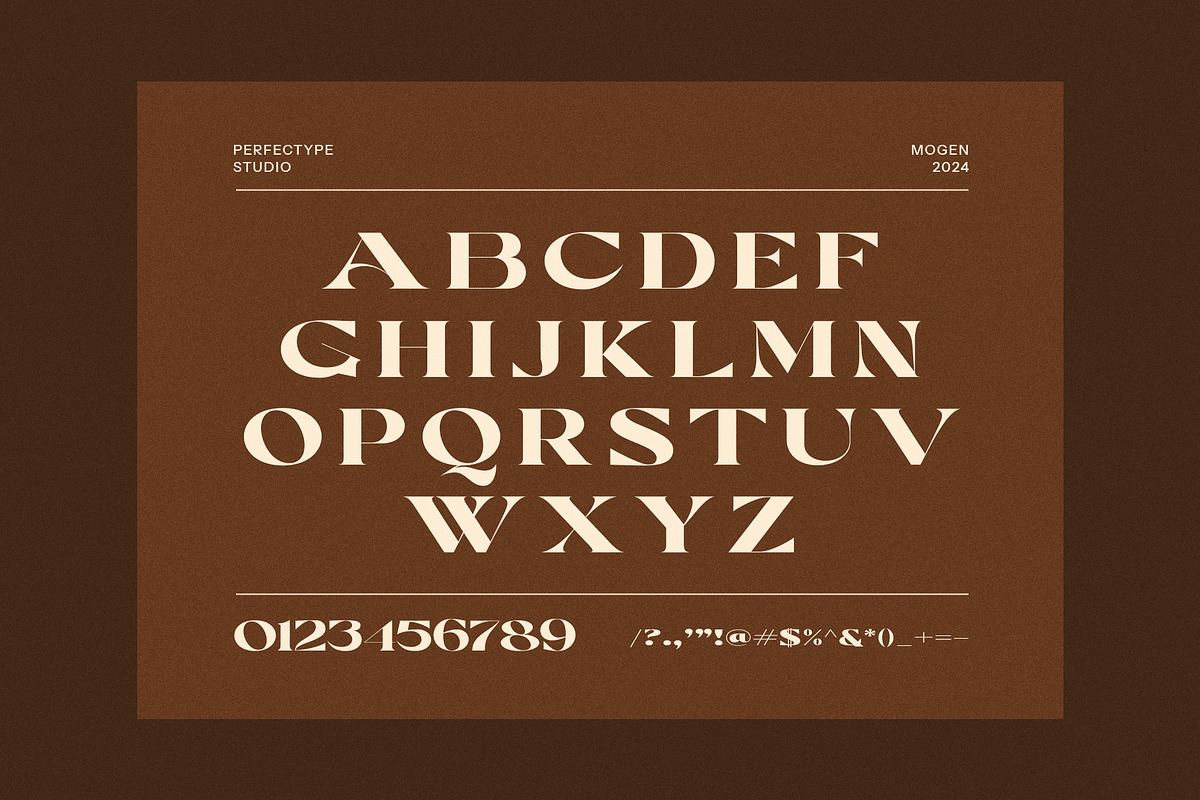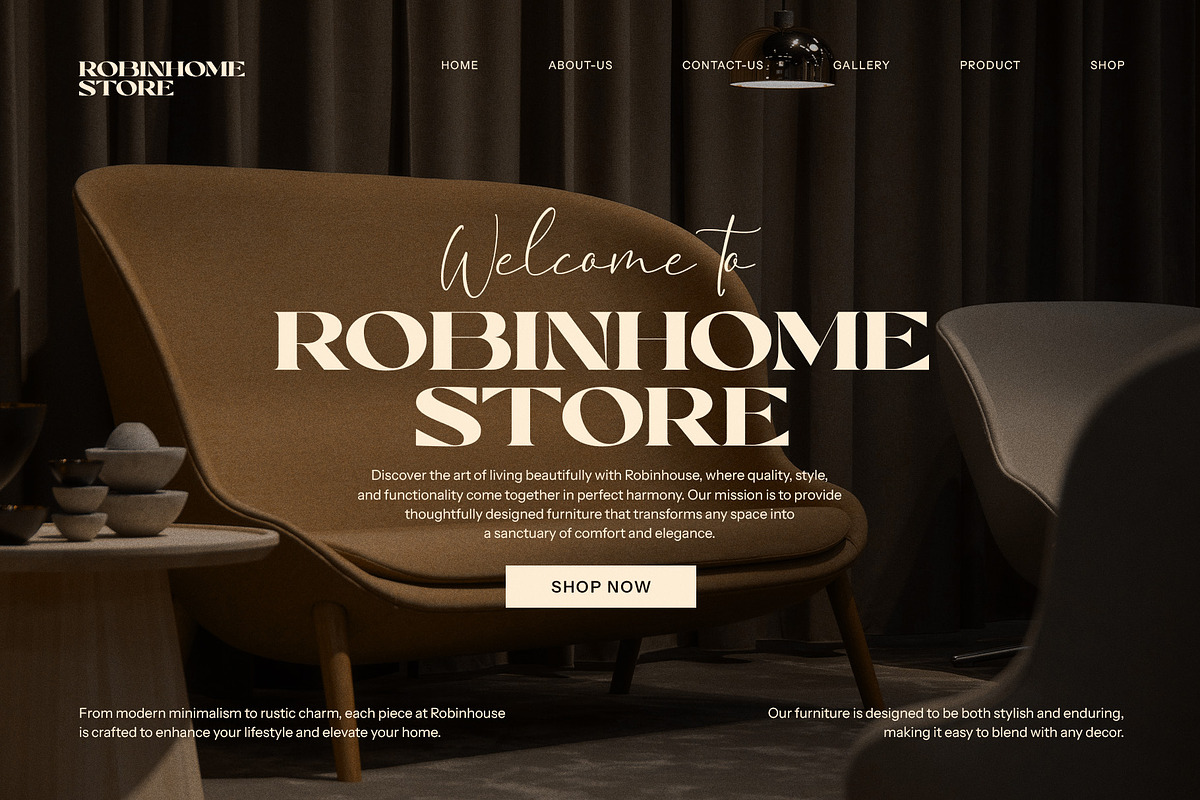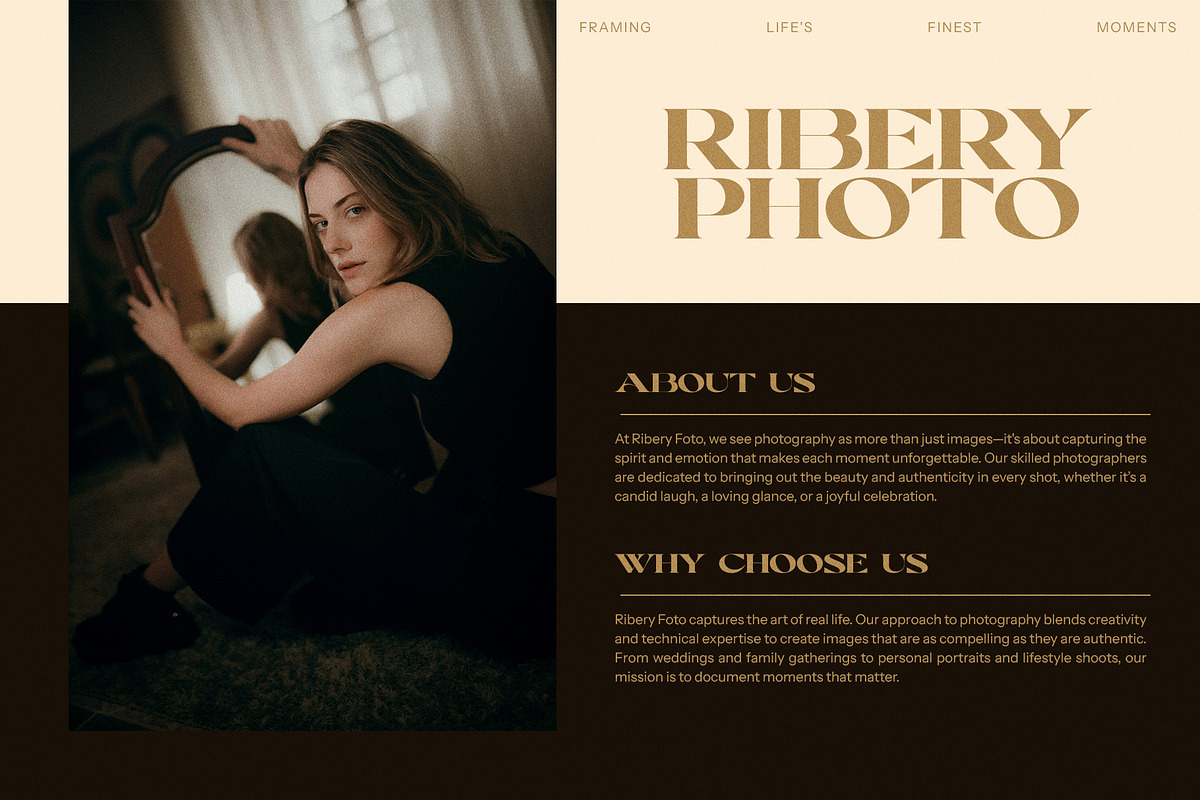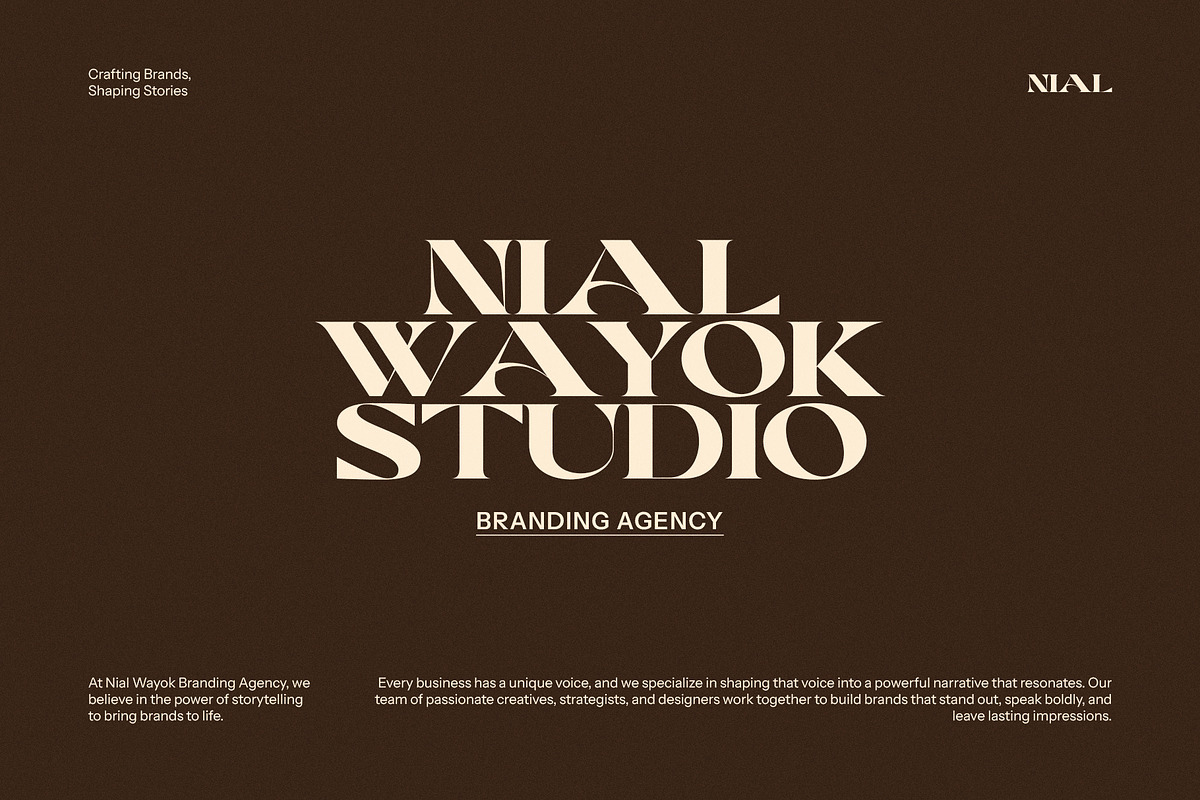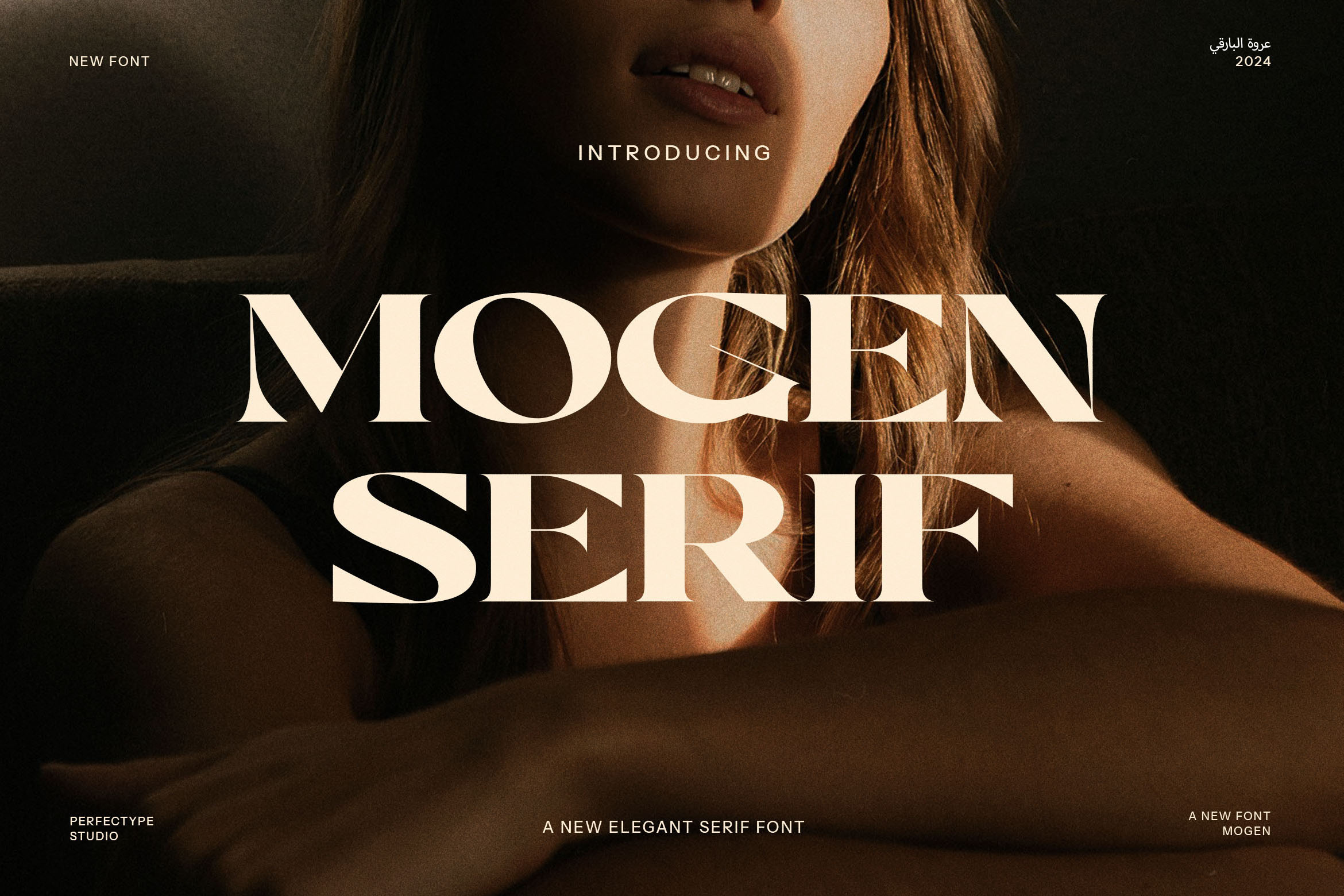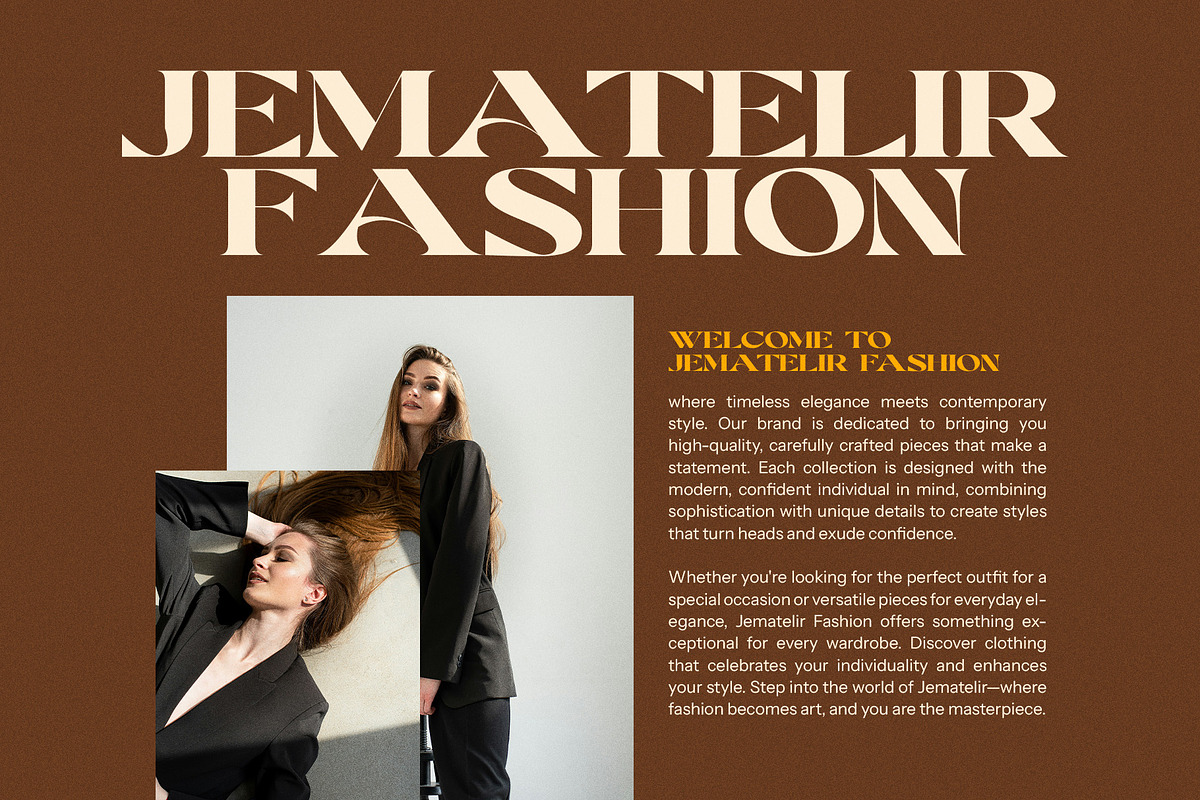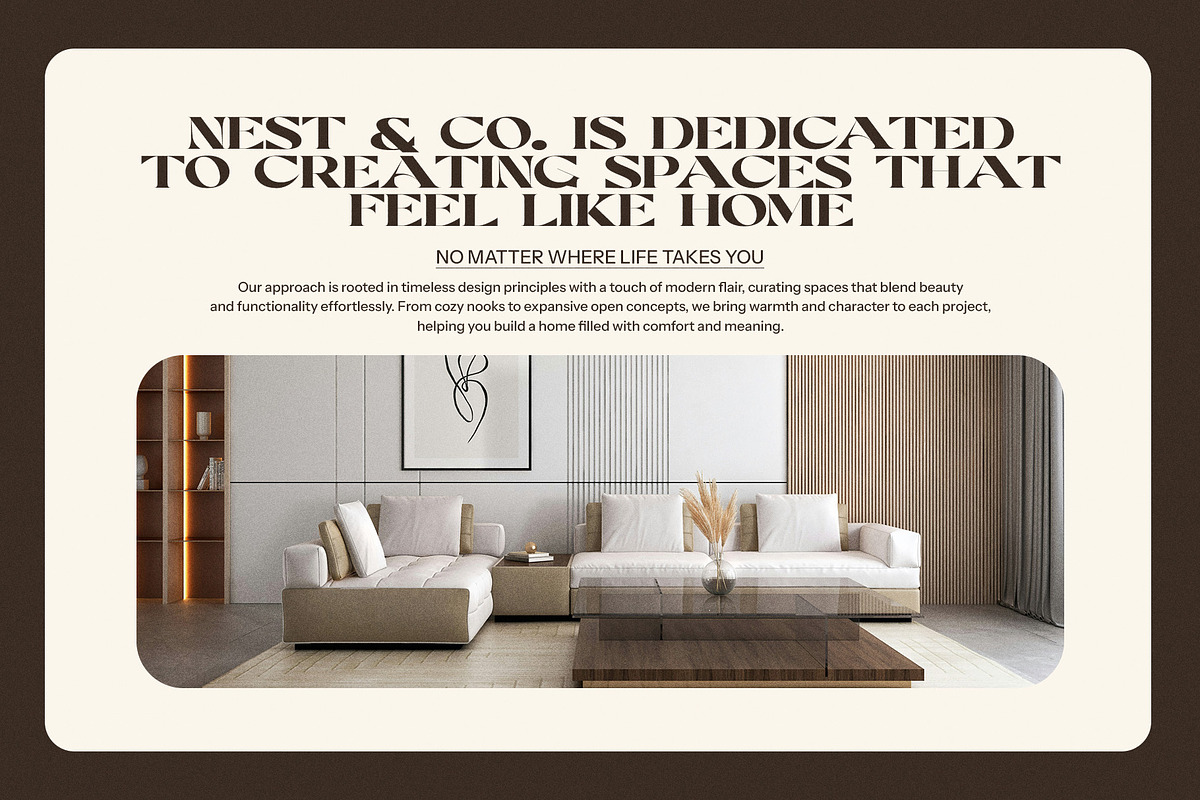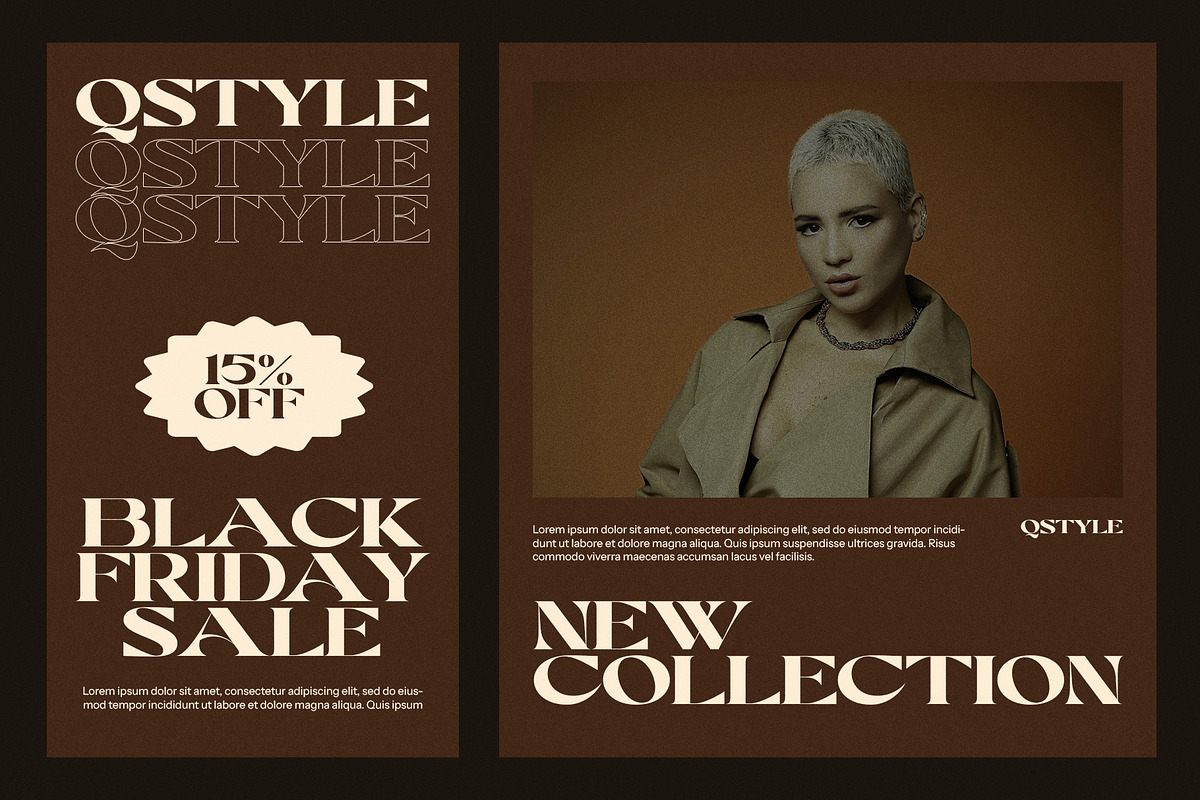
Mogen Serif Font
Mogen Vintage Serif Font - A Timeless Blend of Elegance and Modern Charm
Mogen Vintage Serif Font is the perfect choice for those seeking a sophisticated and stylish typeface with a touch of classic vintage appeal. This versatile font combines thick, bold strokes with delicate, thin lines, offering a perfect balance of modern elegance and timeless design. Whether you're working on branding, logos, websites, magazines, product labels, or advertisements, Mogen Vintage Serif delivers a unique and refined aesthetic.
Crafted to evoke both a sense of luxury and nostalgia, Mogen Vintage Serif is ideal for high-end projects that require a premium feel. Its elegant curves and sharp serifs give it a distinctive look that stands out on various platforms, from digital designs to print materials. The font’s vintage-inspired style makes it especially suitable for boutique brands, fashion labels, food packaging, and other industries looking to make a lasting impression.
Designed with readability and versatility in mind, Mogen Vintage Serif Font works beautifully in both large headlines and smaller body text, making it suitable for a wide range of applications. Its modern yet vintage character makes it a go-to option for designers looking to create an iconic visual identity.
Perfect for upscale branding, logos, and creative projects, Mogen Vintage Serif Font helps you convey professionalism, elegance, and a sense of timeless style. Elevate your design projects today with Mogen Vintage Serif Font and give your brand the refined look it deserves.